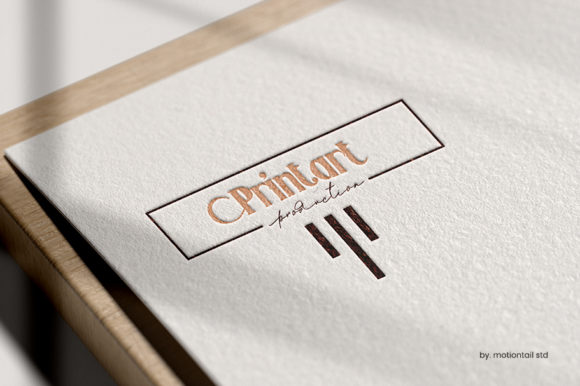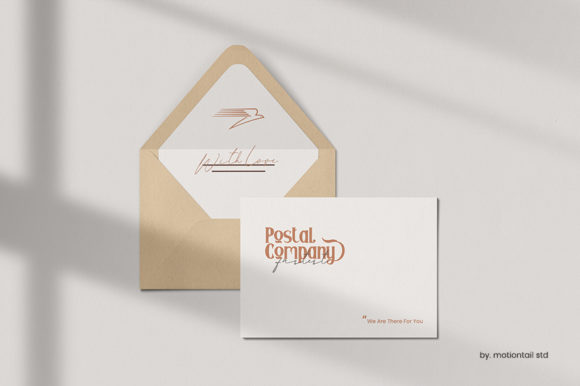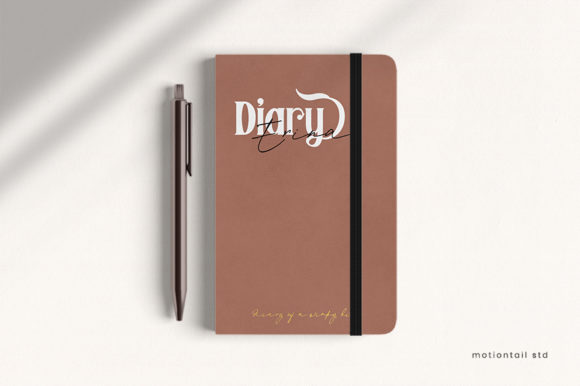
Introduction to Seriffity Duo Font
Have you ever found yourself stuck in a design rut, searching for the perfect font to elevate your creative project? I know I have. It’s that moment when you’re staring at a blank page, trying to convey a message, and the right words just won’t come together. That’s when I discovered the Seriffity Duo Font, and it changed everything.
This high-quality font duo consists of a modern serif font and an elegant script font, giving your designs an authentic handcrafted feel. Whether you’re working on a logo, branding, or packaging design, the Seriffity Duo Font is the perfect design resource to add a touch of sophistication and elegance. And the best part? It’s free to download, making it a valuable asset for designers of all levels.
With its transparent background and PUA encoded glyphs, you can access the available swashes with ease, taking your designs to the next level. Whether you’re a seasoned pro or just starting out, the Seriffity Duo Font is a game-changer for any creative project.
Key Features of Seriffity Duo Font
- High-quality font design for creative projects, ideal for use as a design resource.
- Features a unique combination of serif and sans-serif elements, making it a versatile choice for various design applications.
- Designed with a transparent background, allowing for easy layering and manipulation in design projects.
- Includes a range of characters, including uppercase and lowercase letters, numbers, and punctuation marks, making it suitable for a variety of creative projects.
Honest Review: Seriffity Duo Font
I recently came across the Seriffity Duo Font, and I must say it’s a great addition to any designer’s toolkit. The font is free to download, which is always a bonus, especially for smaller design projects.
The font itself has a beautiful, high-quality design that can be used for a variety of creative projects. The transparent background allows for seamless integration with other design elements.
Here are some things that work well with the Seriffity Duo Font:
- ✨ Versatile design that can be used for multiple creative projects
- ✨ High-quality design that looks great on any background
- ⚠️ Limited font sizes and weights, which may limit its use in more complex projects
Overall, I’m impressed with the Seriffity Duo Font. It’s a great resource for designers who need a high-quality, versatile font for their creative projects. Just be aware of its limitations and use it accordingly.
Tips for Getting the Most Out of Seriffity Duo Font
Experiment with different font sizes, colors, and styles to create unique and visually appealing designs. Use the font in conjunction with other design elements to create a cohesive and professional look.
The Seriffity Duo Font is suitable for a wide range of creative projects, including graphic design, branding, and digital marketing. It’s a versatile design resource that can be used in various contexts, from business to personal projects.